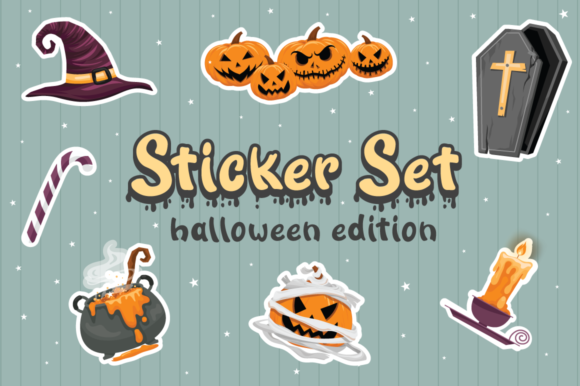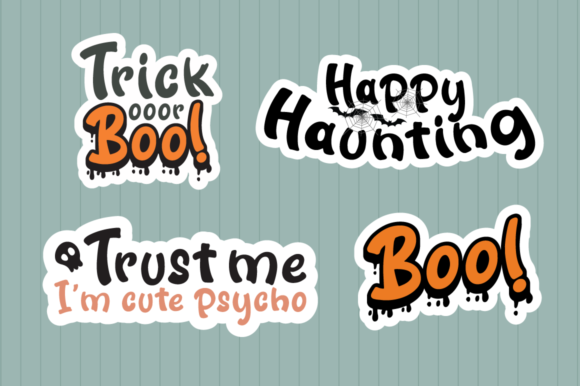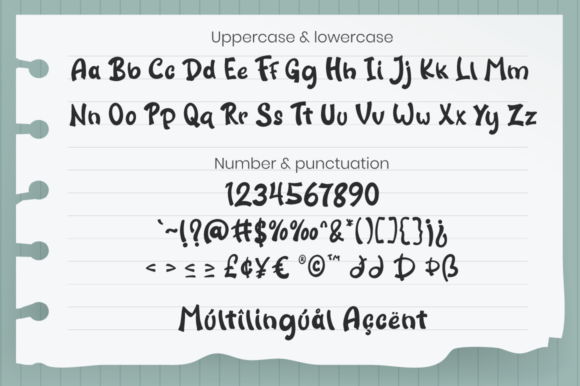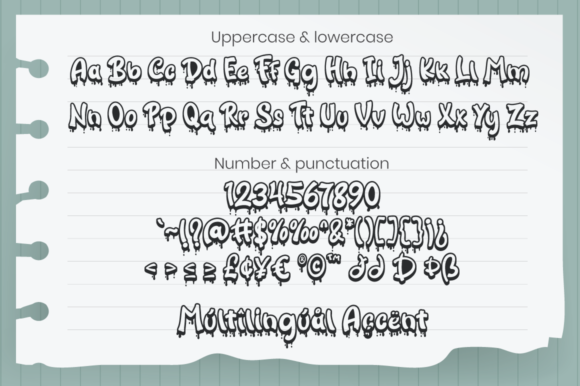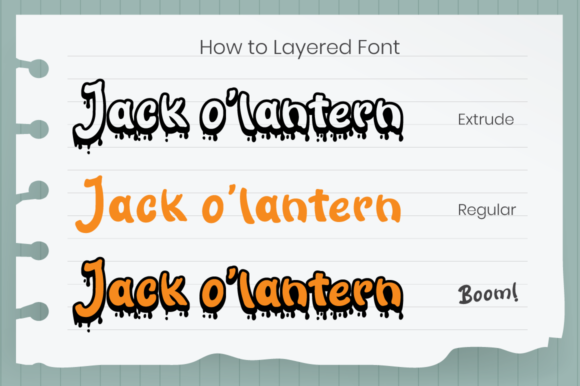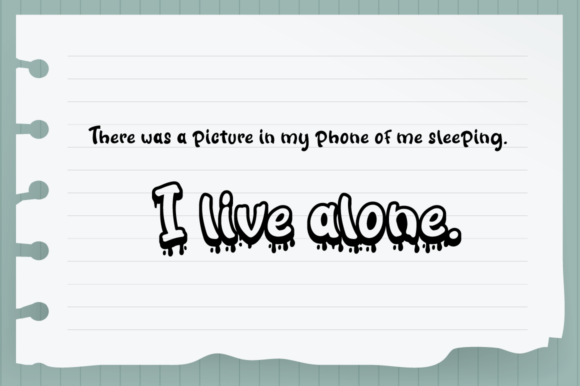
Bloody Ichor Font: The Ultimate Guide to Adding a Spooky Touch to Your Designs
Are you looking for a font that can add a spooky and fun touch to your designs? Look no further than the Bloody Ichor Font. This cool display font is perfect for designers and crafters who want to create unique and eye-catching projects. In this article, we’ll take a closer look at the Bloody Ichor Font, its features, and how you can use it to take your designs to the next level.
What is Bloody Ichor Font?
Bloody Ichor Font is a display font designed to add a spooky and fun touch to your designs. It’s perfect for creating Halloween-themed projects, horror-inspired artwork, or any design that requires a bold and edgy look. The font features a unique and intricate design, with bold lines and a distressed texture that gives it a bloody and eerie feel.
Key Features of Bloody Ichor Font
So, what makes Bloody Ichor Font so special? Here are some of its key features:
- Unique Design: The font features a unique and intricate design that’s perfect for creating spooky and fun designs.
- Distressed Texture: The font has a distressed texture that gives it a bloody and eerie feel.
- Bold Lines: The font features bold lines that make it perfect for creating eye-catching designs.
How to Use Bloody Ichor Font in Your Designs
Using Bloody Ichor Font in your designs is easy. Here are some tips to get you started:
- Pair it with Other Fonts: Pair Bloody Ichor Font with other fonts to create a unique and eye-catching design.
- Use it for Headlines: Use Bloody Ichor Font for headlines and titles to add a spooky and fun touch to your designs.
- Add it to Your Halloween-Themed Projects: Add Bloody Ichor Font to your Halloween-themed projects, such as invitations, posters, and social media graphics.
- Experiment with Different Colors: Experiment with different colors to find the perfect combination that works with Bloody Ichor Font.
Benefits of Using Bloody Ichor Font
So, why should you use Bloody Ichor Font in your designs? Here are some benefits:
- Adds a Spooky Touch: Bloody Ichor Font adds a spooky and fun touch to your designs, making them perfect for Halloween-themed projects.
- Increases Engagement: The font’s unique design and distressed texture can help increase engagement and grab the attention of your audience.
- Versatile: Bloody Ichor Font is versatile and can be used in a variety of designs, from horror-inspired artwork to fun and playful projects.
- Easy to Read: Despite its distressed texture, Bloody Ichor Font is easy to read, making it perfect for headlines and titles.
In conclusion, Bloody Ichor Font is a cool, spooky, and fun display font that’s perfect for designers and crafters who want to add a unique touch to their designs. With its unique design, distressed texture, and bold lines, Bloody Ichor Font is sure to grab the attention of your audience. Whether you’re creating Halloween-themed projects or horror-inspired artwork, Bloody Ichor Font is a great choice. So, add it confidently to your favorite creations and let yourself be amazed by the outcome generated.